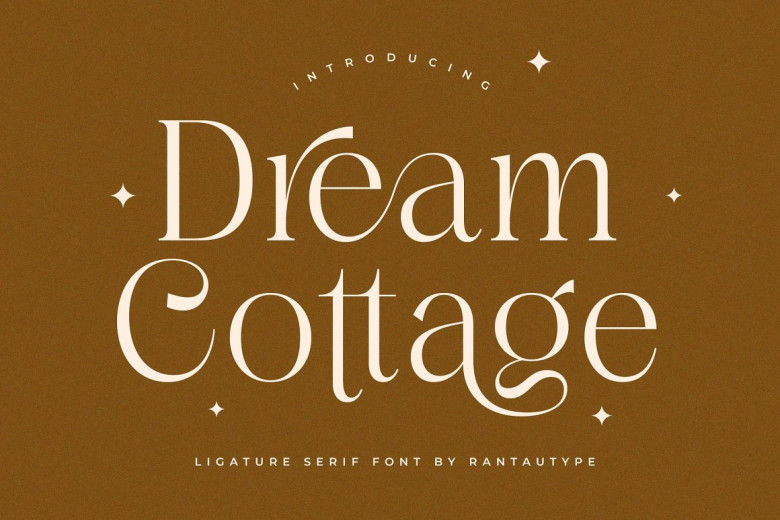
Dream Cottage Font
Dream Cottage – Dream Cottage typography now provides more options! A chic and elegant display serif font with stunning contrast, this font comes equipped with its own special ligature which can be utilized. Perfect for creating elegant lifestyle designs like magazine covers, logos and titles; Dream Cottage typography now provides even more flexibility!
Dream Cottage Serif Font